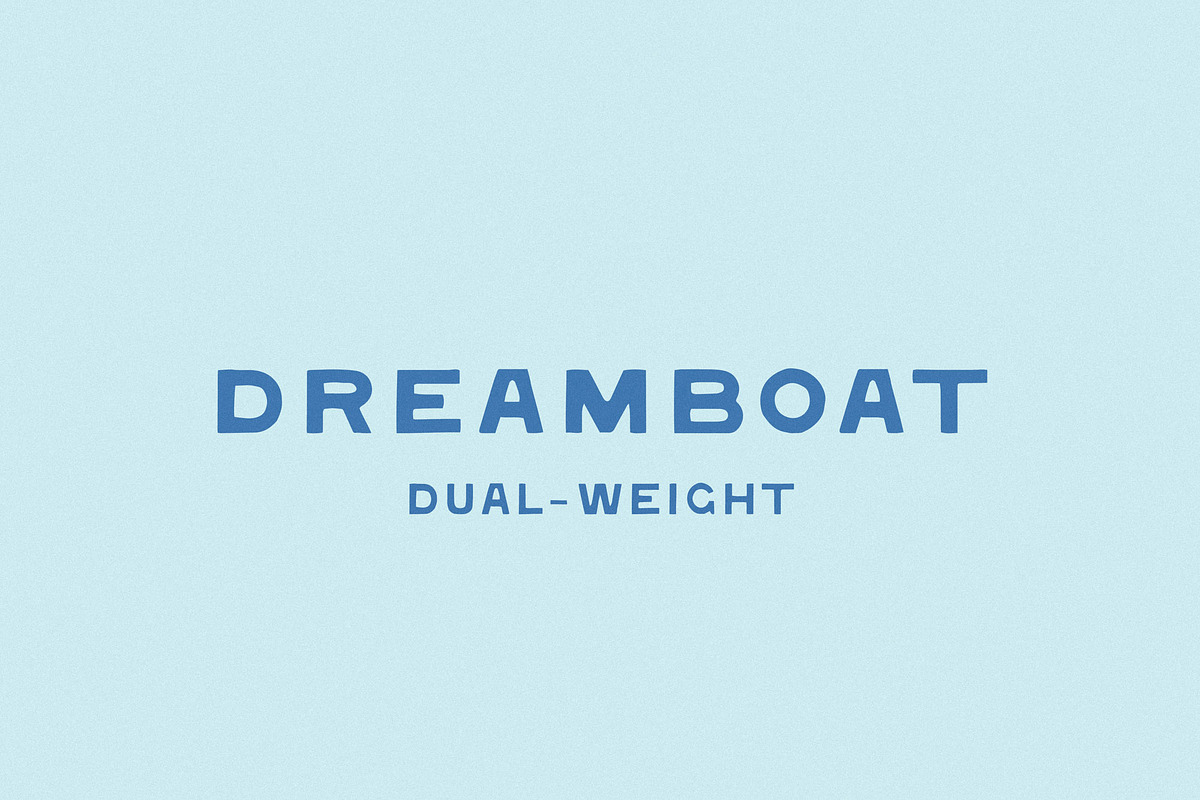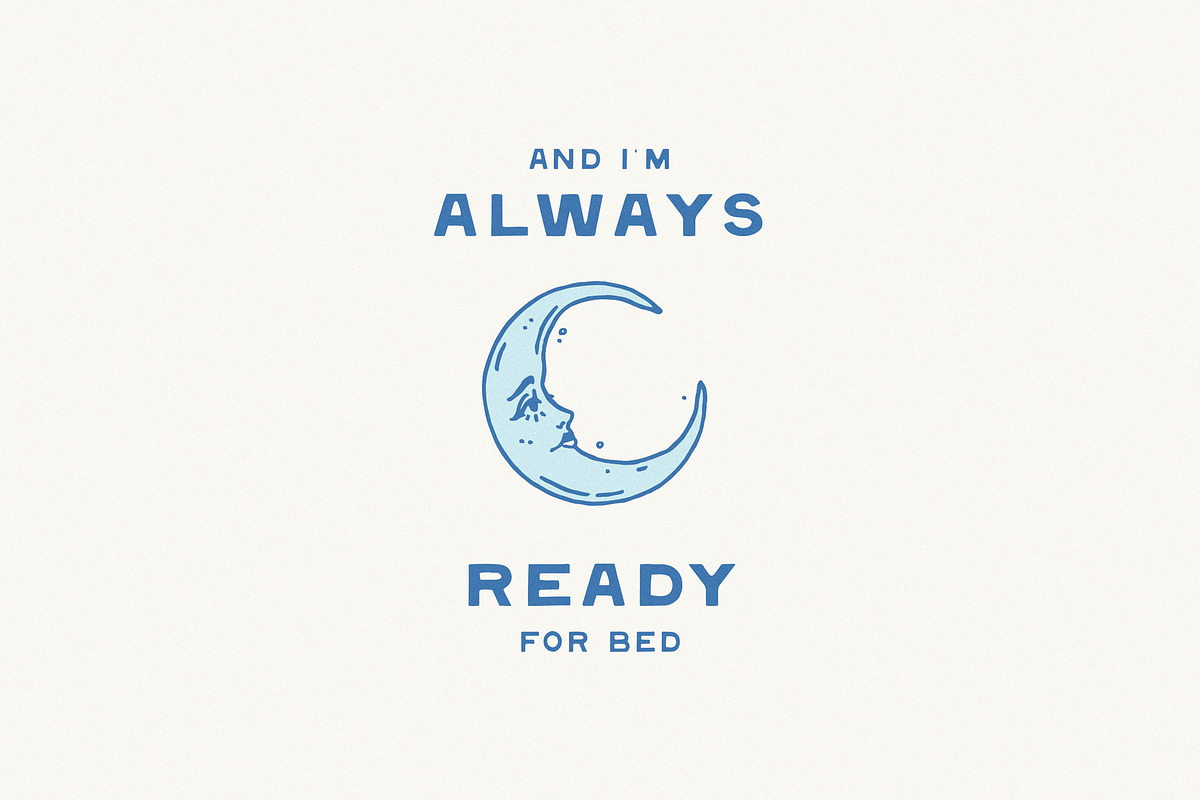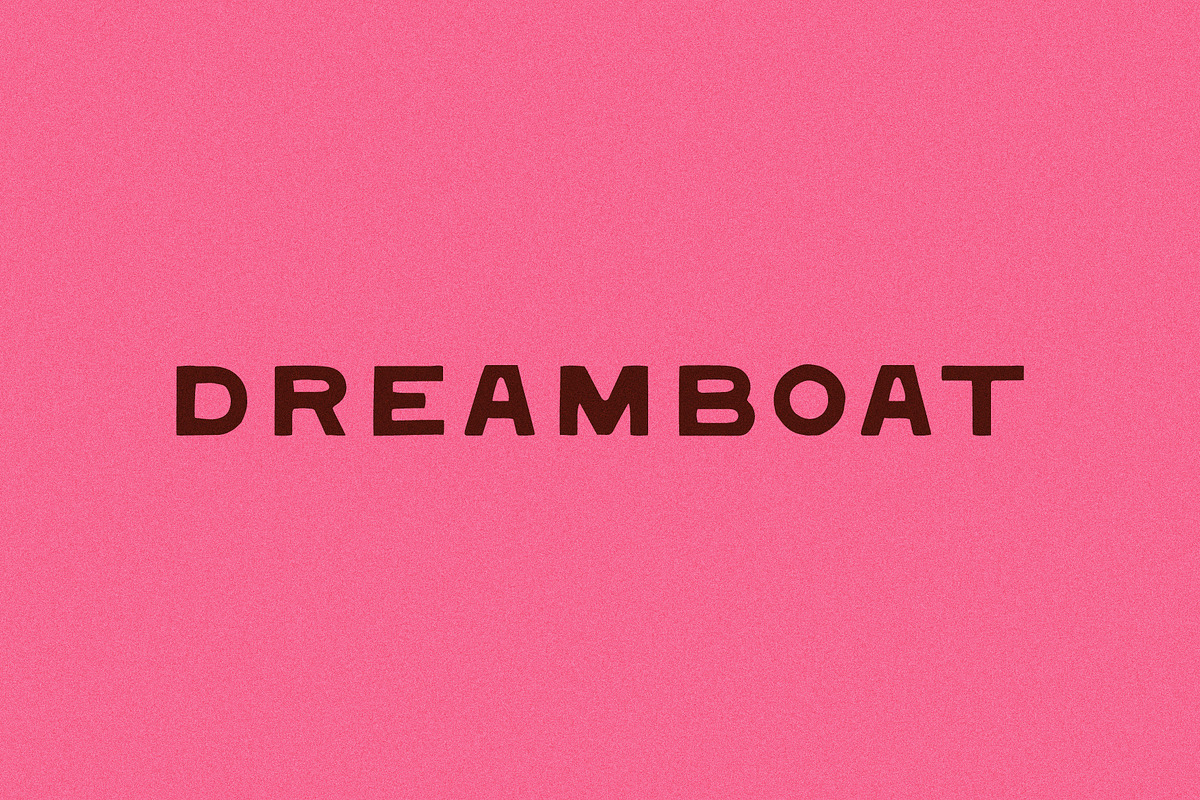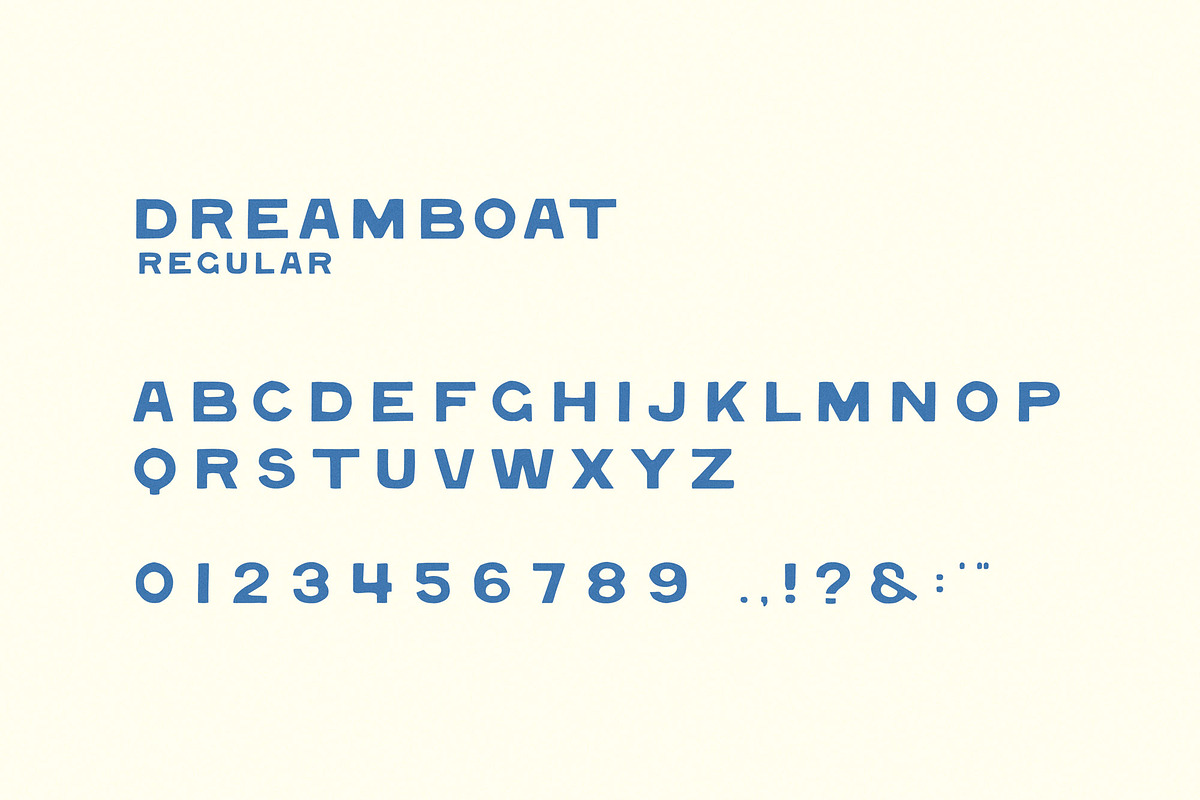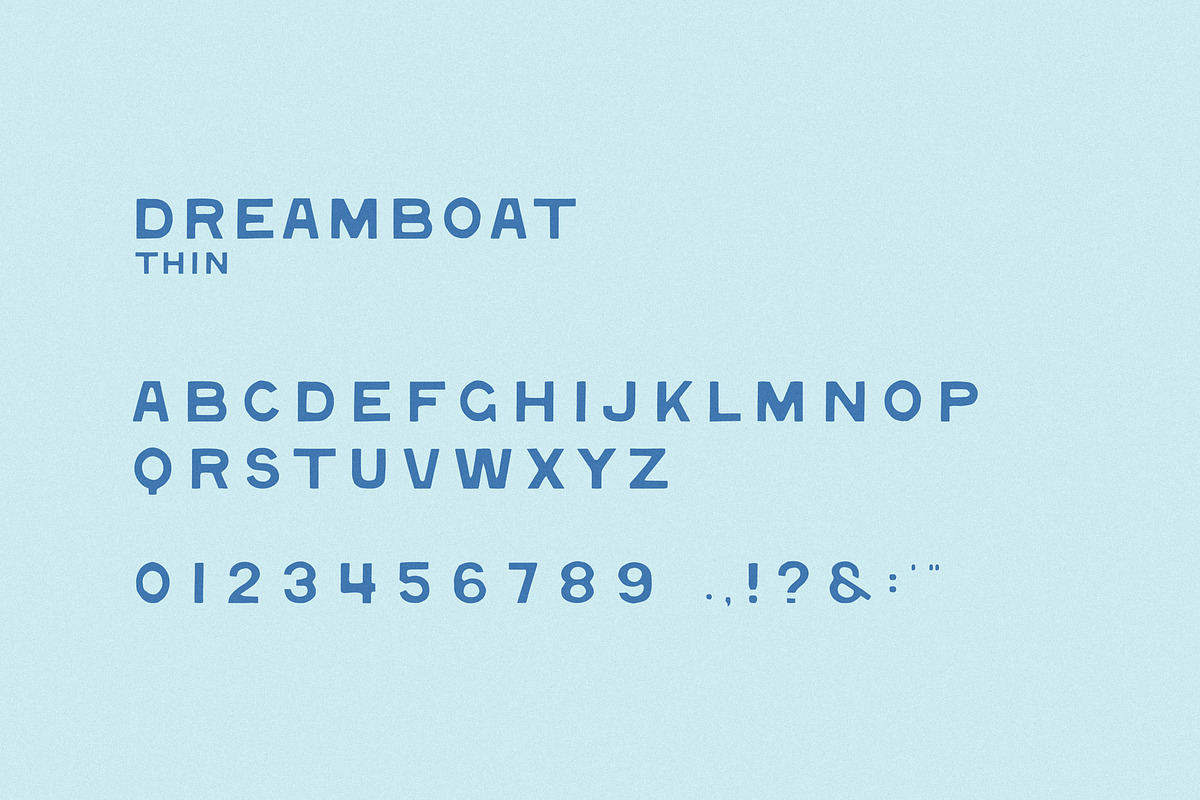
Dreamboat | Dual-Weight Display Type
All the good font names were taken, so here’s Dreamboat.
A slightly-too-attractive display typeface with wide forms, soft edges, and just enough unrefined detail to keep it interesting. Comes in both Thin and Regular weights. Pairs well with lime and deadlines.
Basic Latin support with a limited set of accented characters.